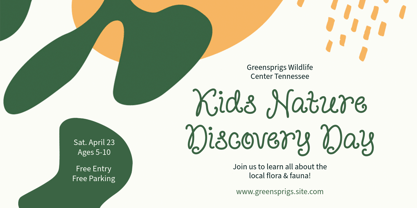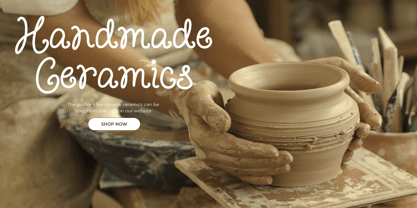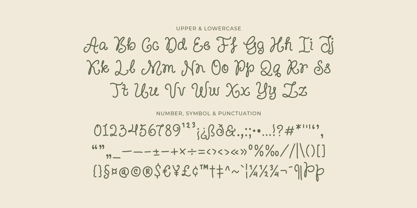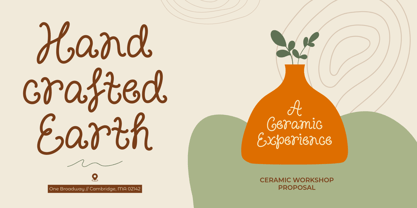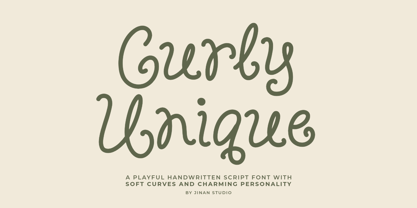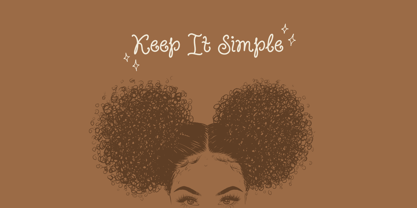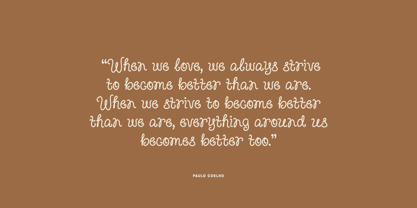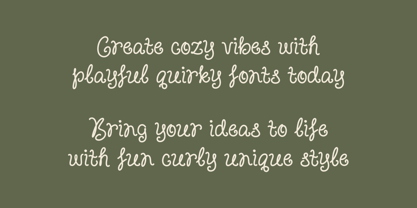
Curly Unique
The Curly Unique Font Family was designed by Andi Syahdang, Ainun Jinan and published by Jinan Studio. Curly Unique contains 1 styles. More about this family
Curly Unique is a playful handwritten script font with soft curves and charming personality. Designed with smooth, flowing strokes and subtle whimsical details, this font brings a warm and friendly feel to any design. Its natural, slightly imperfect letterforms create an authentic handwritten look—perfect for projects that need a personal and inviting touch. Whether you’re working on branding, packaging, social media, or creative crafts, Curly Unique adds a delightful and expressive vibe that feels both modern and approachable. Features A set of uppercase and lowercase glyphs Number, symbol, and punctuation Multilingual Support